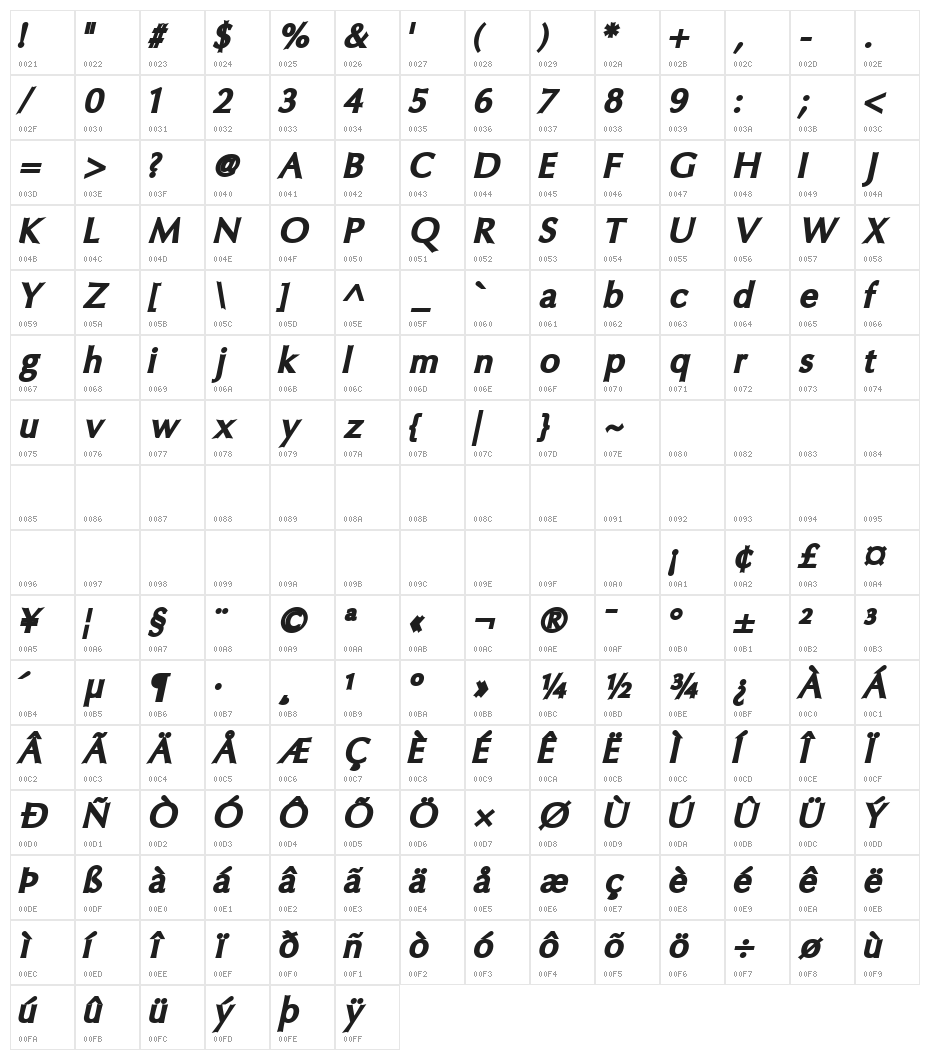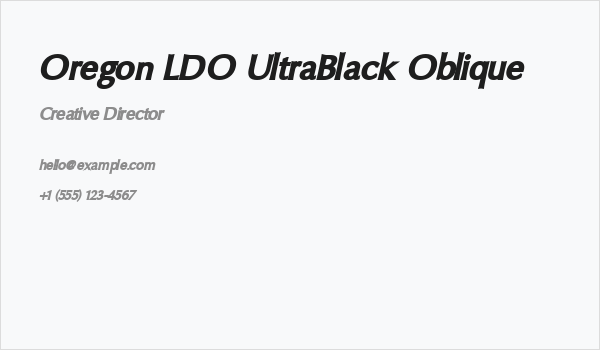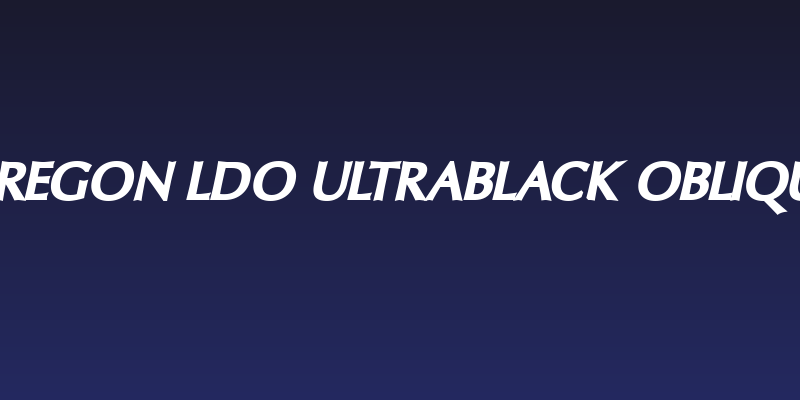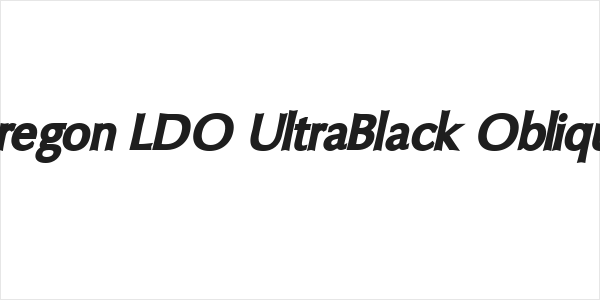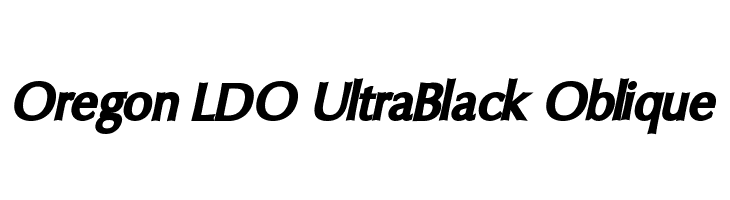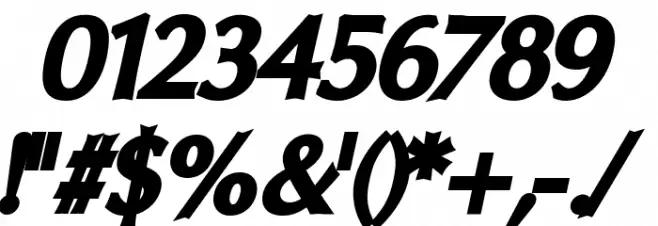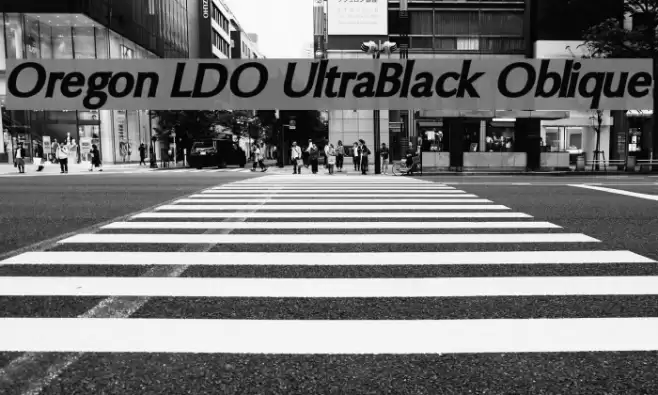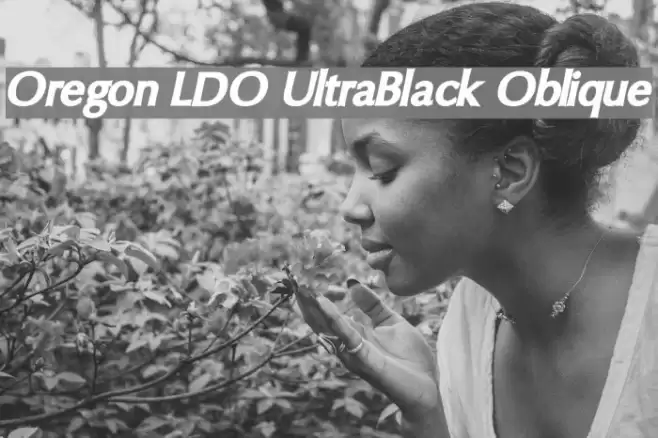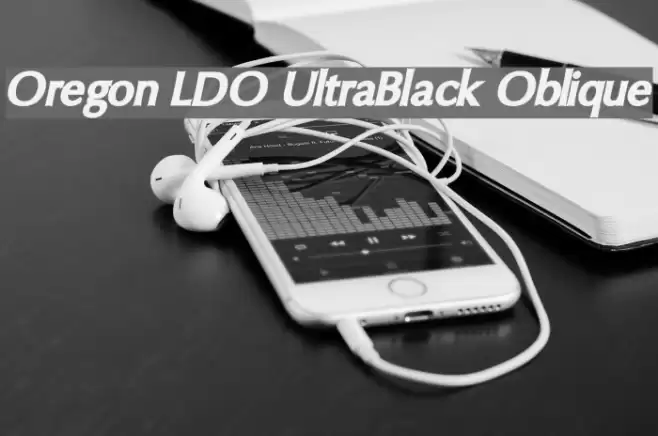
Oregon LDO UltraBlack Oblique Font
Oregon LDO UltraBlack Oblique Description
This font exhibits a bold and dynamic presence with its ultra-black weight and oblique style. The characters are sharply defined with a strong slant, giving a sense of movement and urgency. The uppercase and lowercase letters maintain a consistent style, with wide strokes and minimal contrast, emphasizing their boldness. The numerals are equally robust, ensuring clarity and impact. Special characters are designed with the same boldness, making them stand out effectively. This font is ideal for projects that require a strong visual impact and a modern, assertive look.
| Proposed Projects | Ideal for headlines, posters, branding, and advertising where a strong, impactful statement is needed. |